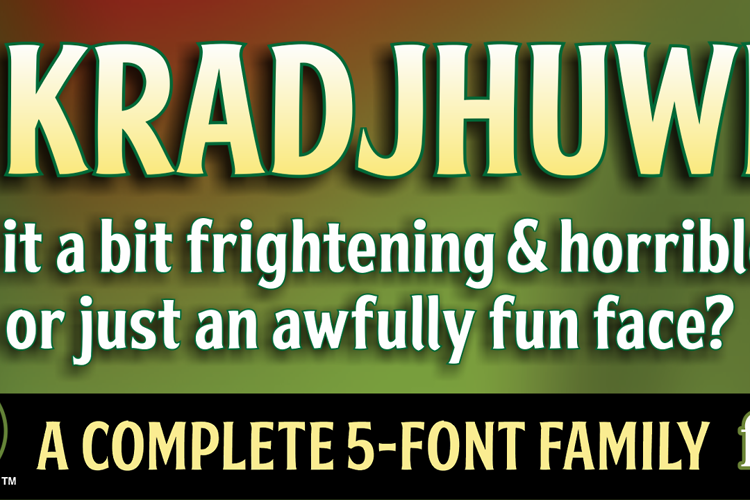
FTY SKRADJHUWN NCV Font
About FTY SKRADJHUWN NCV Font
More info from the Fontry
A fun face with a nice bounce, SKRADJHUWN arrives in 3 flavors to fill all your layout needs. For even more variety and a complete range of lowercase letters, get your hands on the commercial version of this family. It will meet all your weight requirements for those graphics that need to be lean and clean.